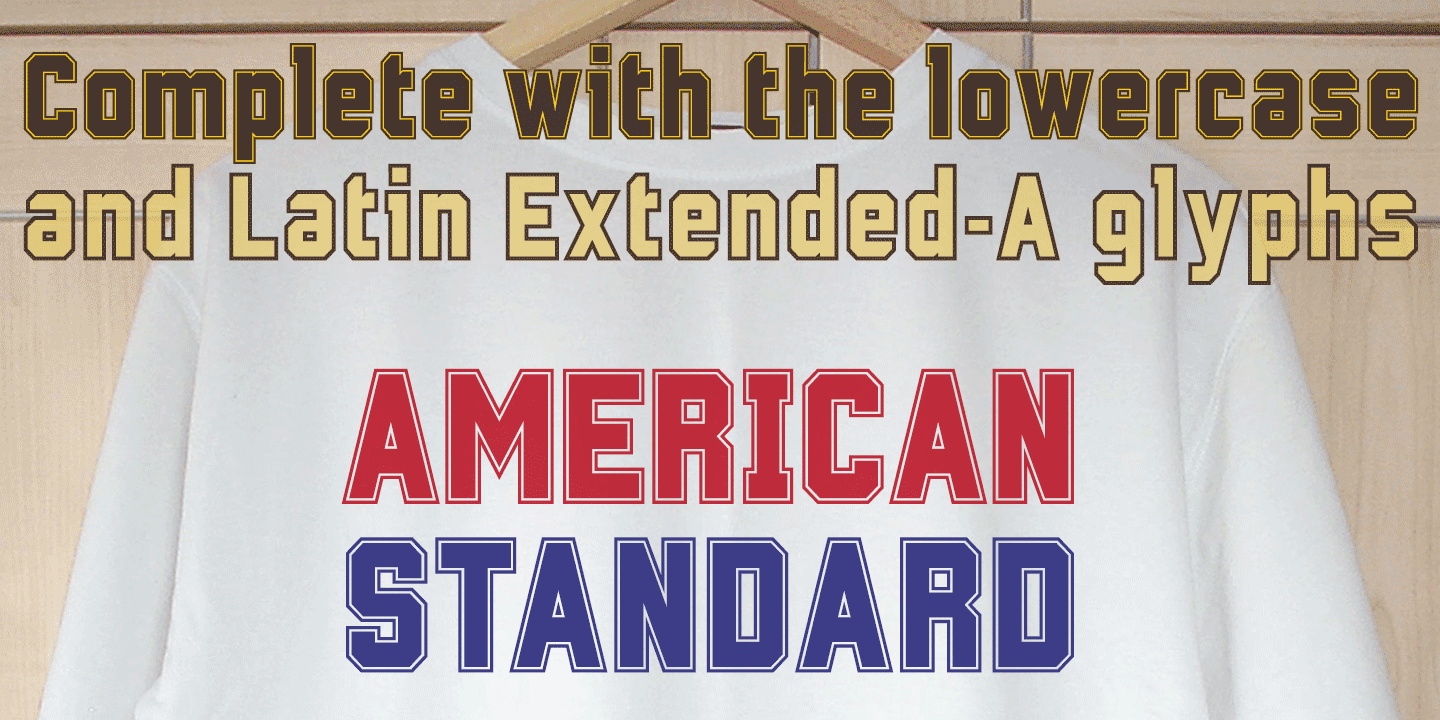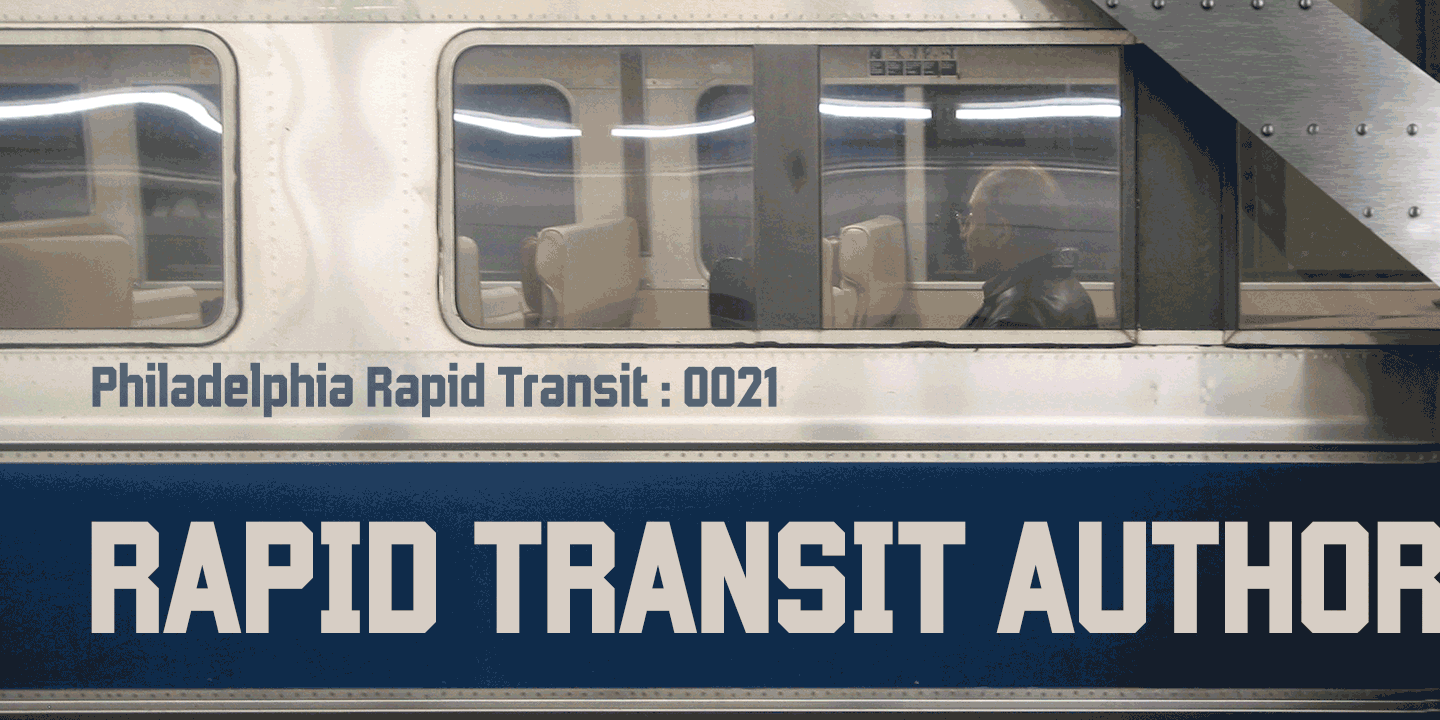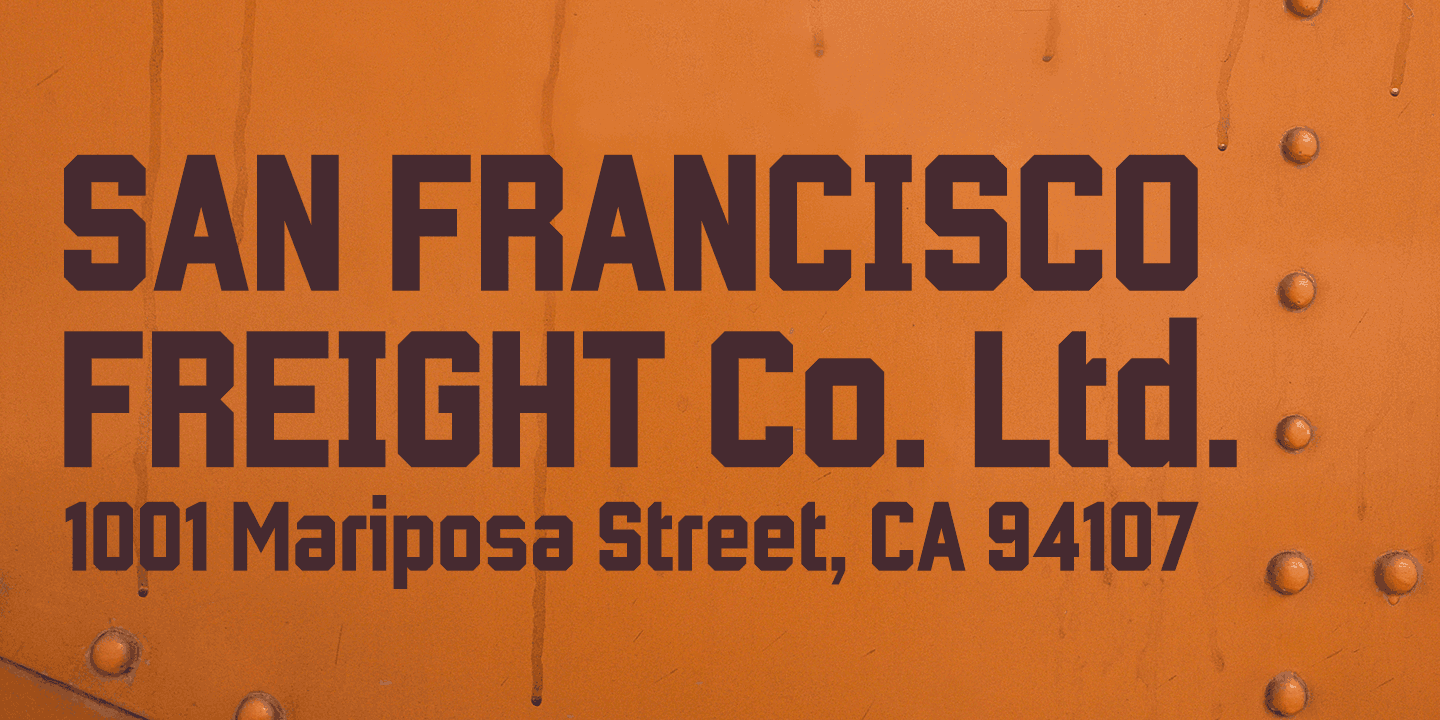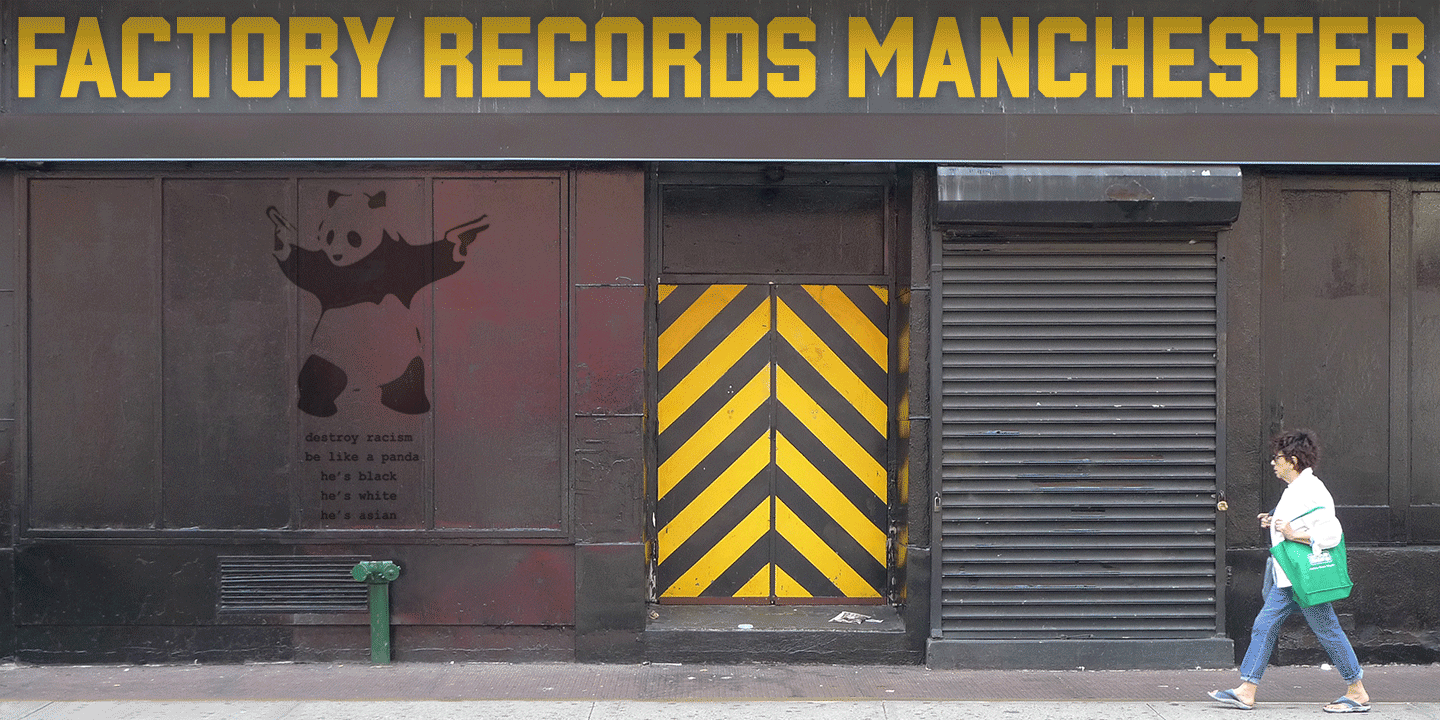
About Wildcat
The starting point for Wildcat was the 3×5 squared grid popular for tiled lettering and American sportswear typefaces. However, Wildcat breaks free of the net whenever necessary. This typeface comes across as tough, it has no soft curves, and evokes…